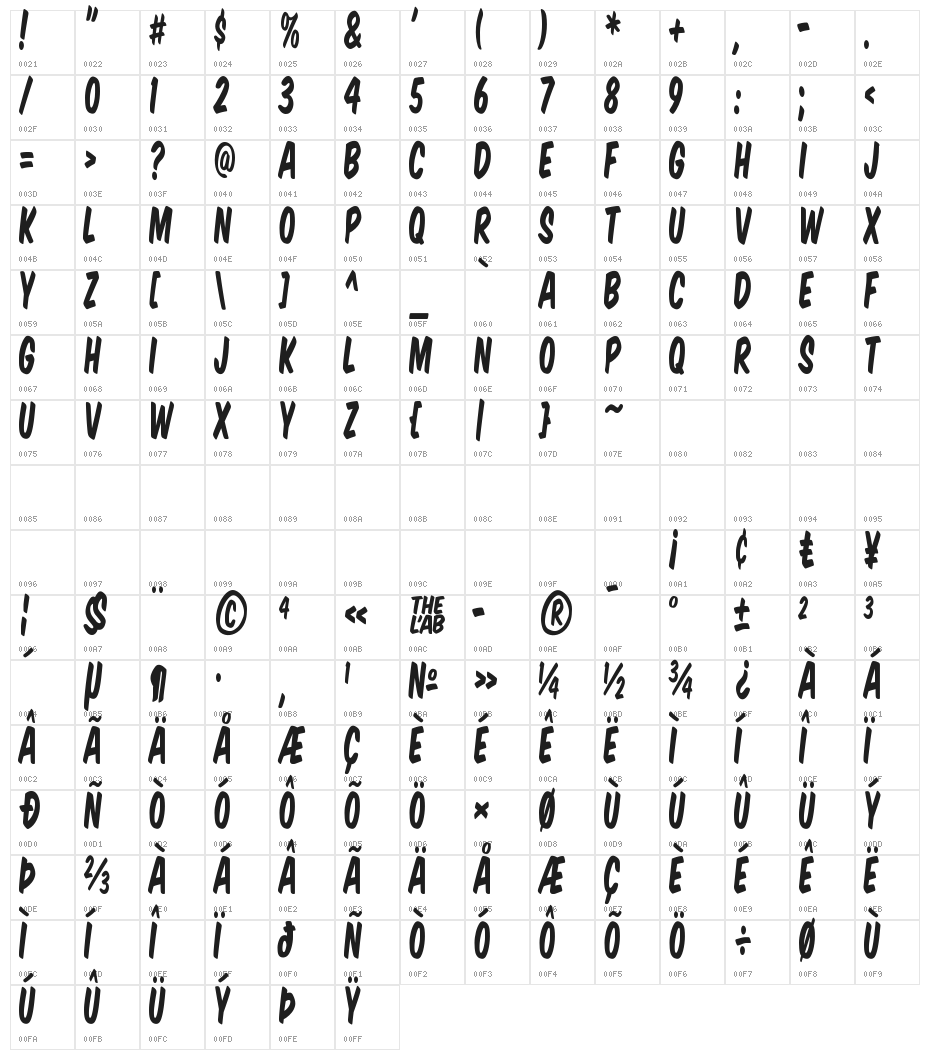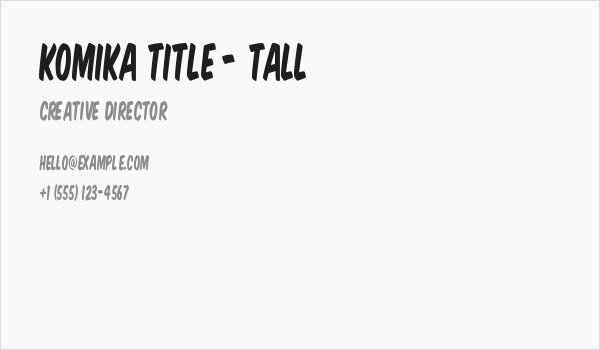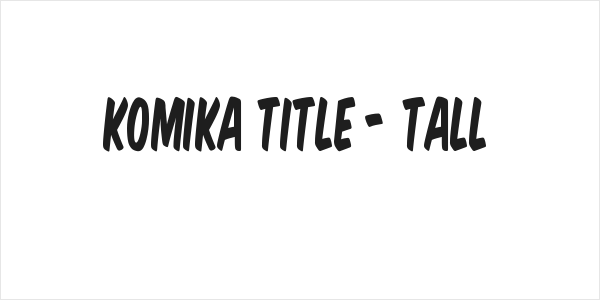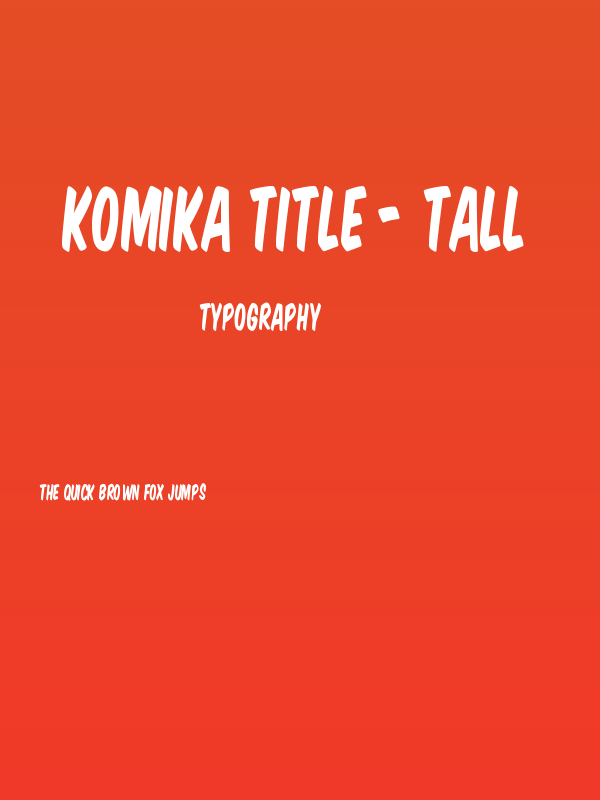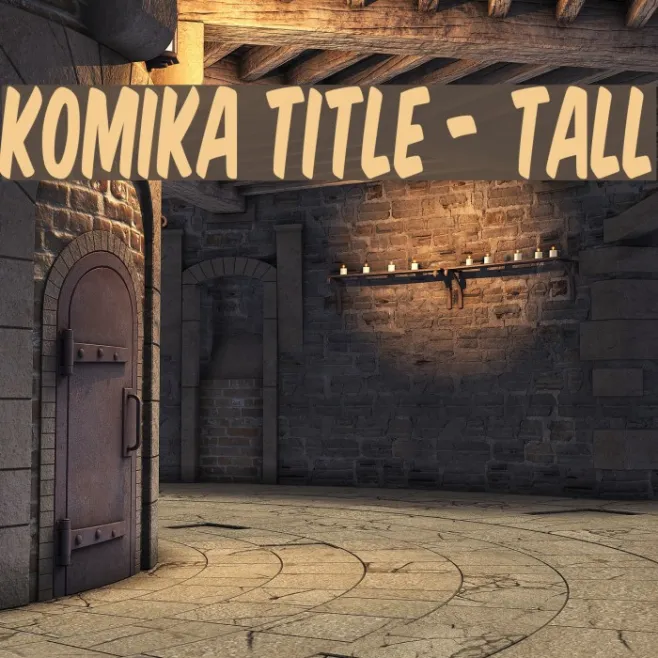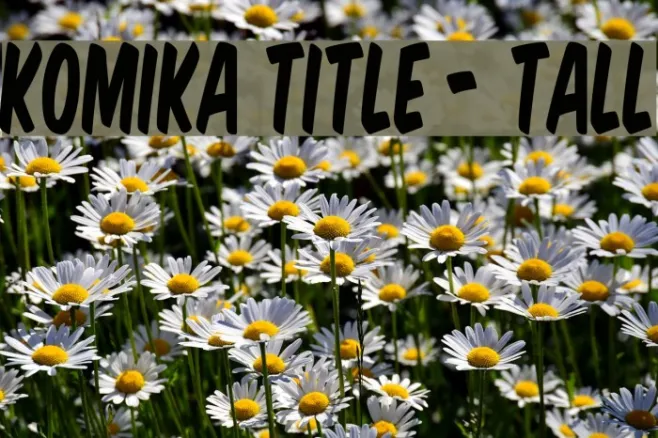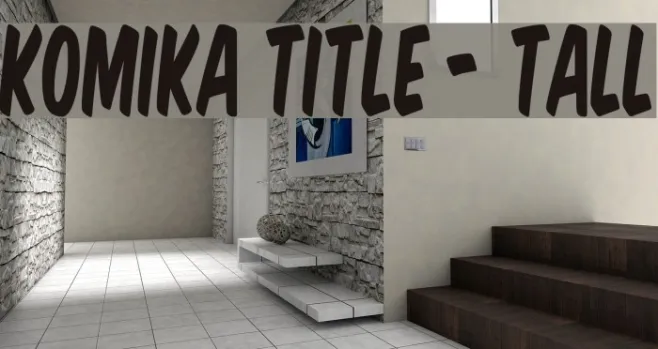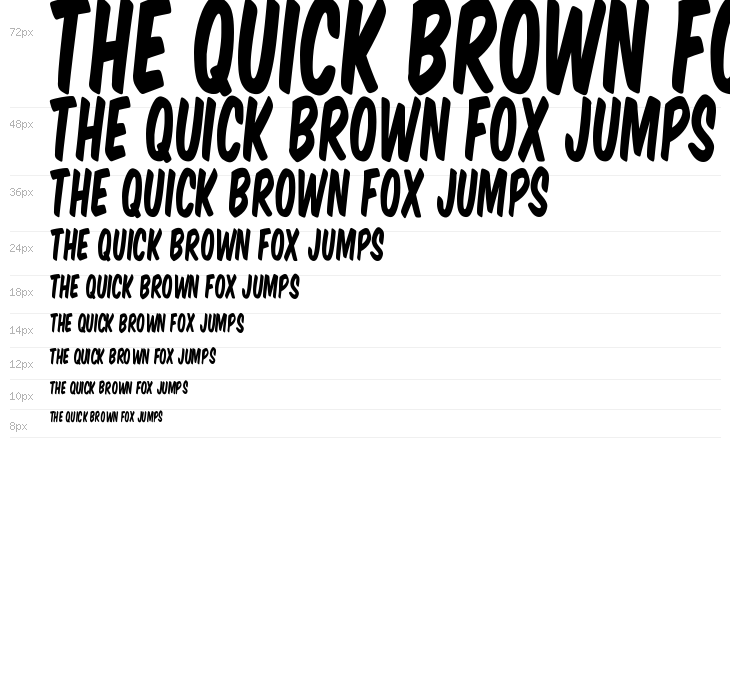
Komika Title - Tall Font
Komika Title - Tall Description
This font features a bold and playful style, characterized by its tall and slightly condensed letterforms. The strokes are thick and consistent, giving it a strong presence. The characters have a slight slant, adding a dynamic and energetic feel. The font maintains a uniform stroke width, contributing to its bold appearance. Its playful nature makes it suitable for informal and fun designs. The numbers and special characters are designed to match the bold and lively style of the letters, ensuring consistency throughout the typeface.
| Overall Style | Playful, Energetic |
| Proposed Projects | Ideal for comic books, children's books, playful branding, and posters. |